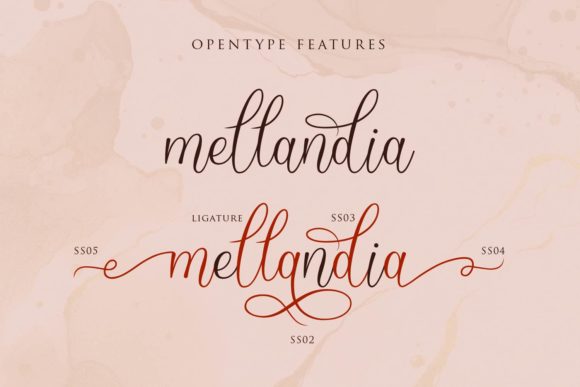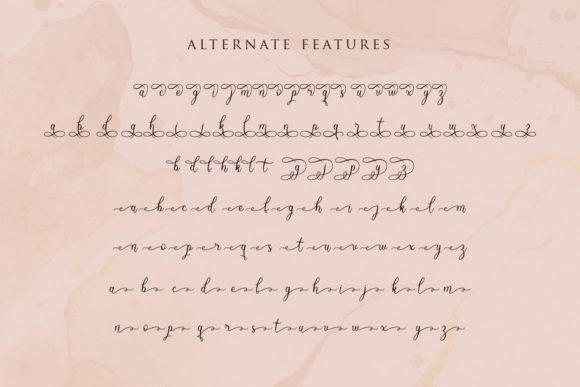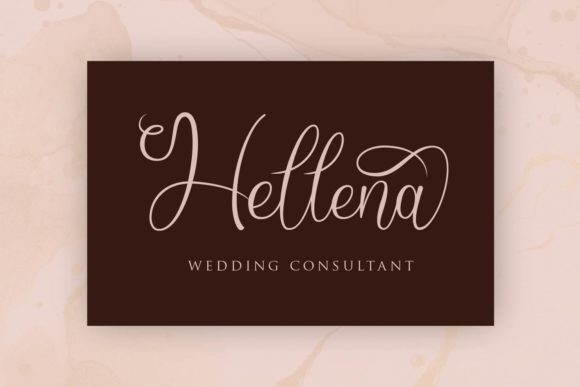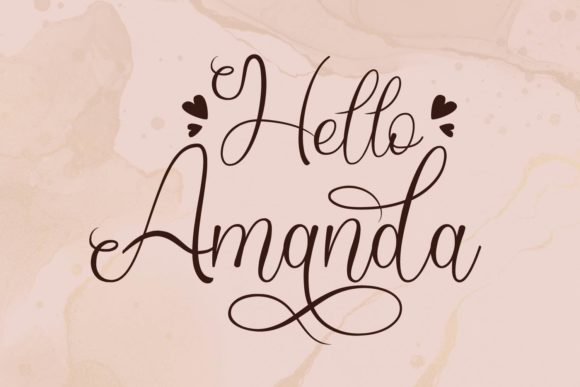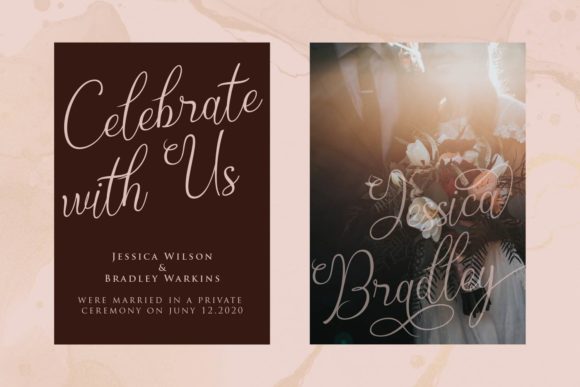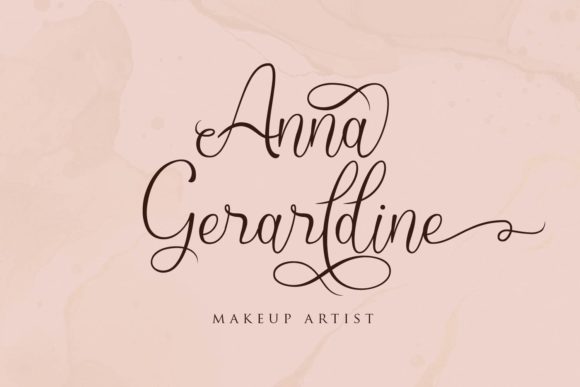
Introduction to Mellandia Font
Mellandia is a gorgeous script font with beautiful swashes.
Get inspired by its unique flow and create lovely greeting cards, cute stationary, outstanding wedding invitations and much more This font is PUA encoded which means you can access all of the cute glyphs and swashes with ease.